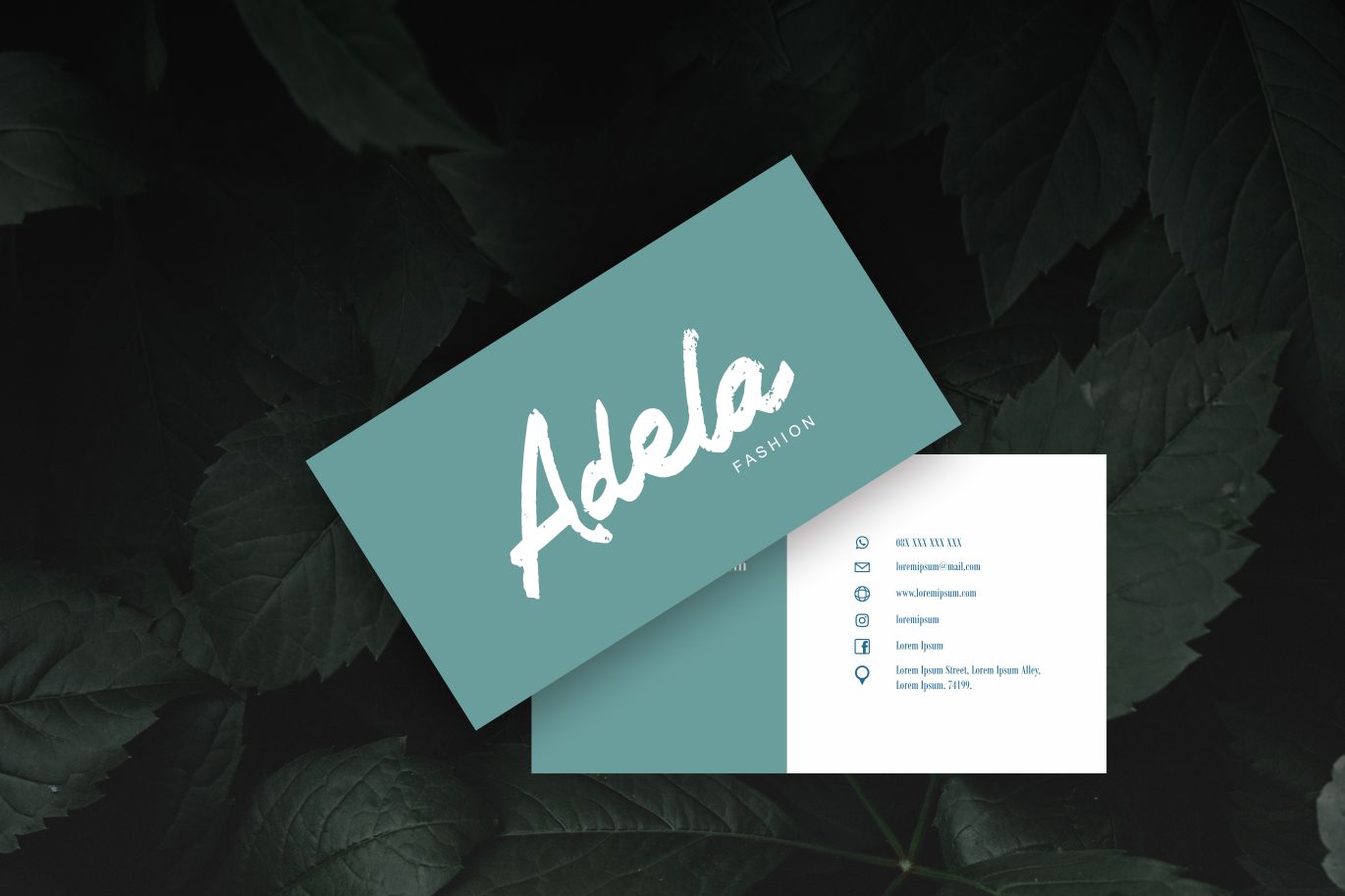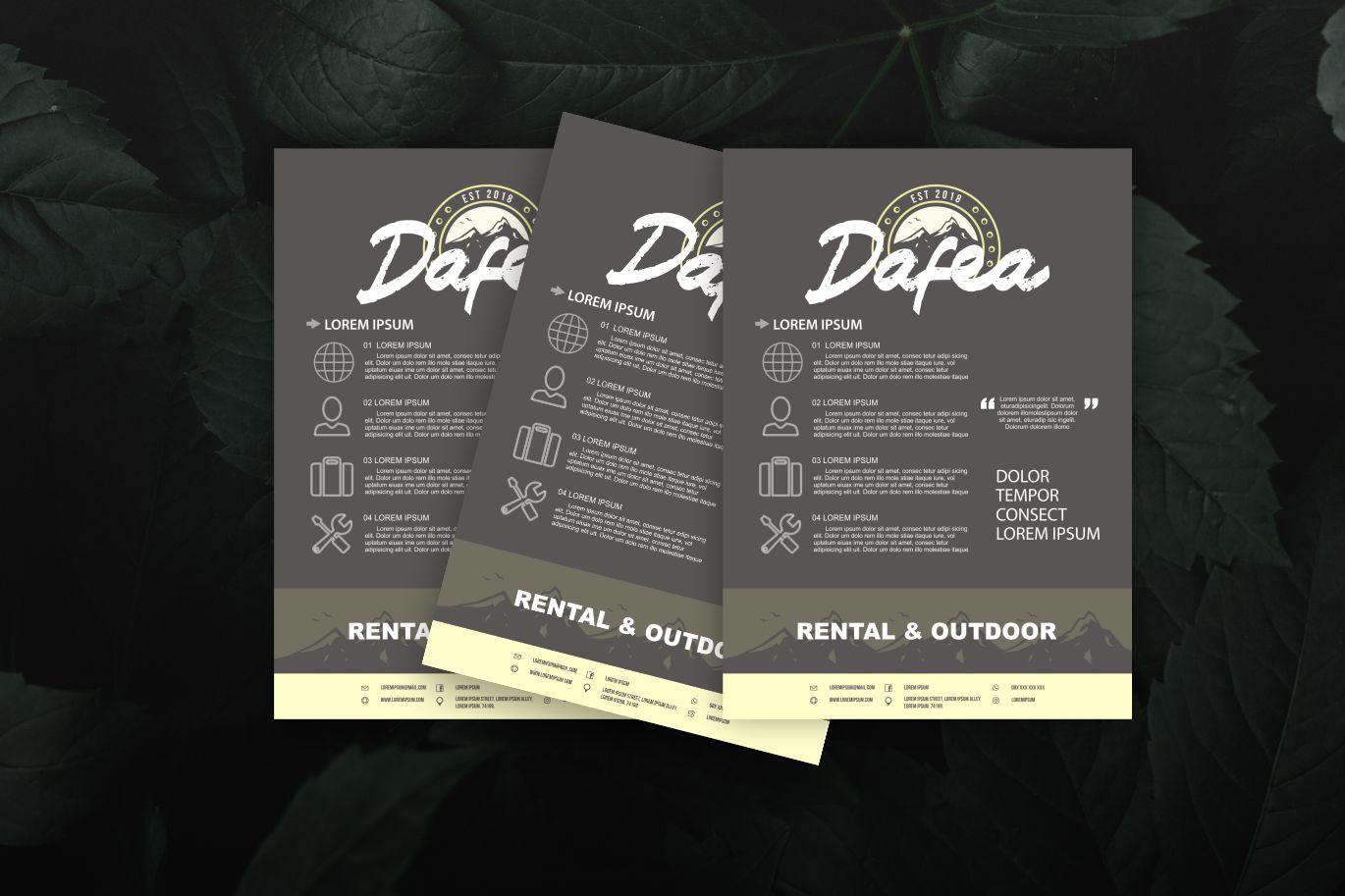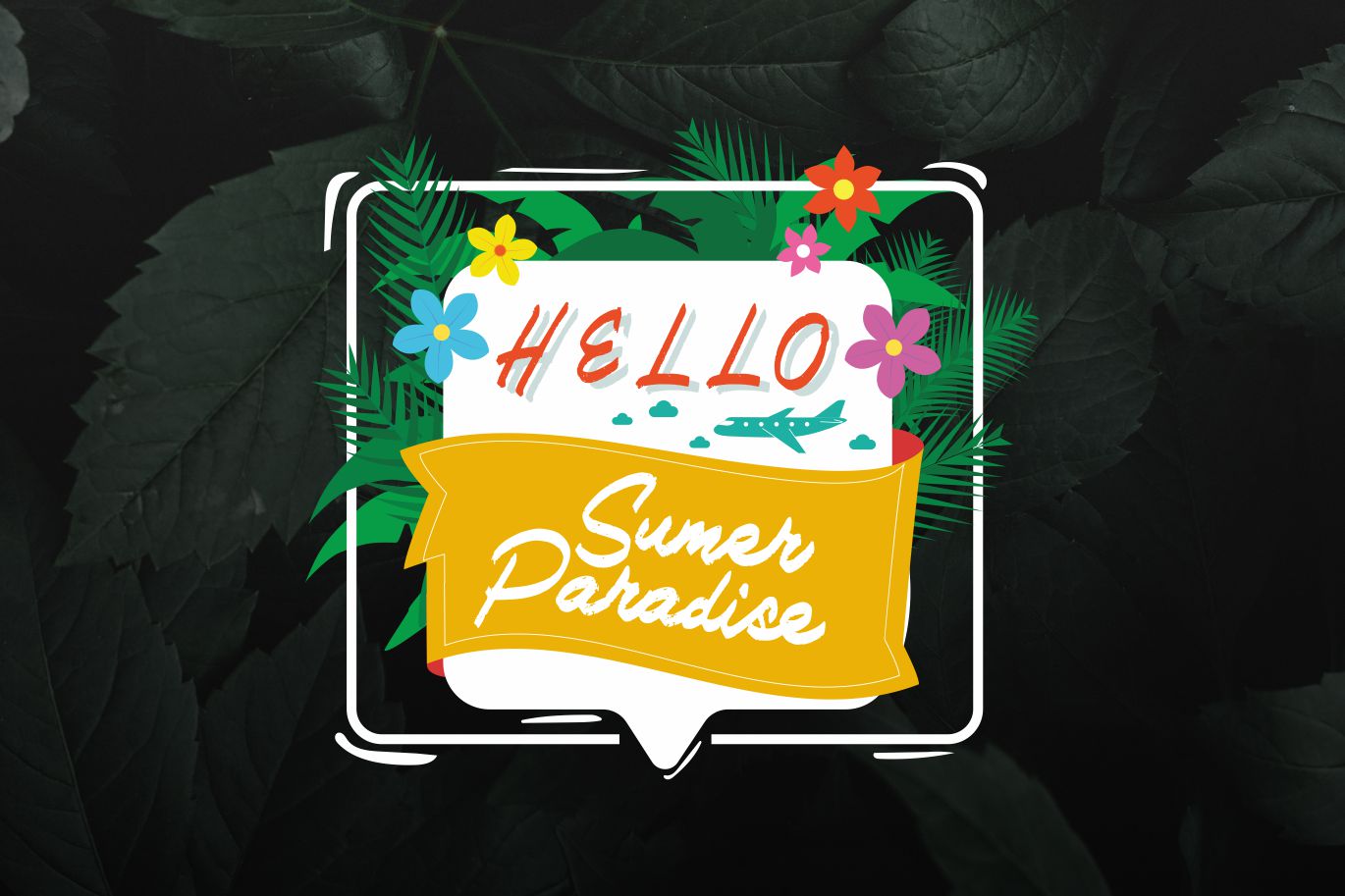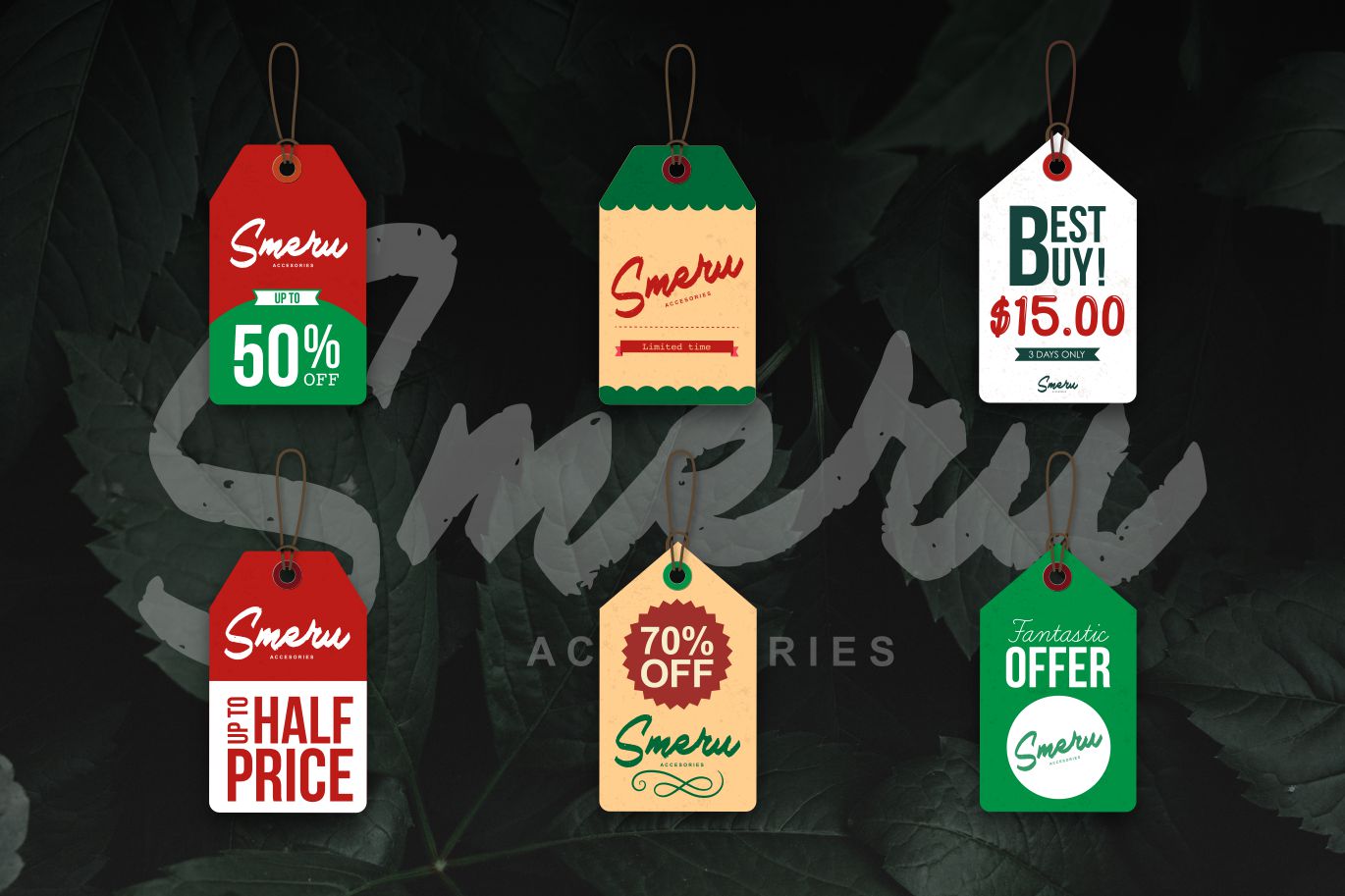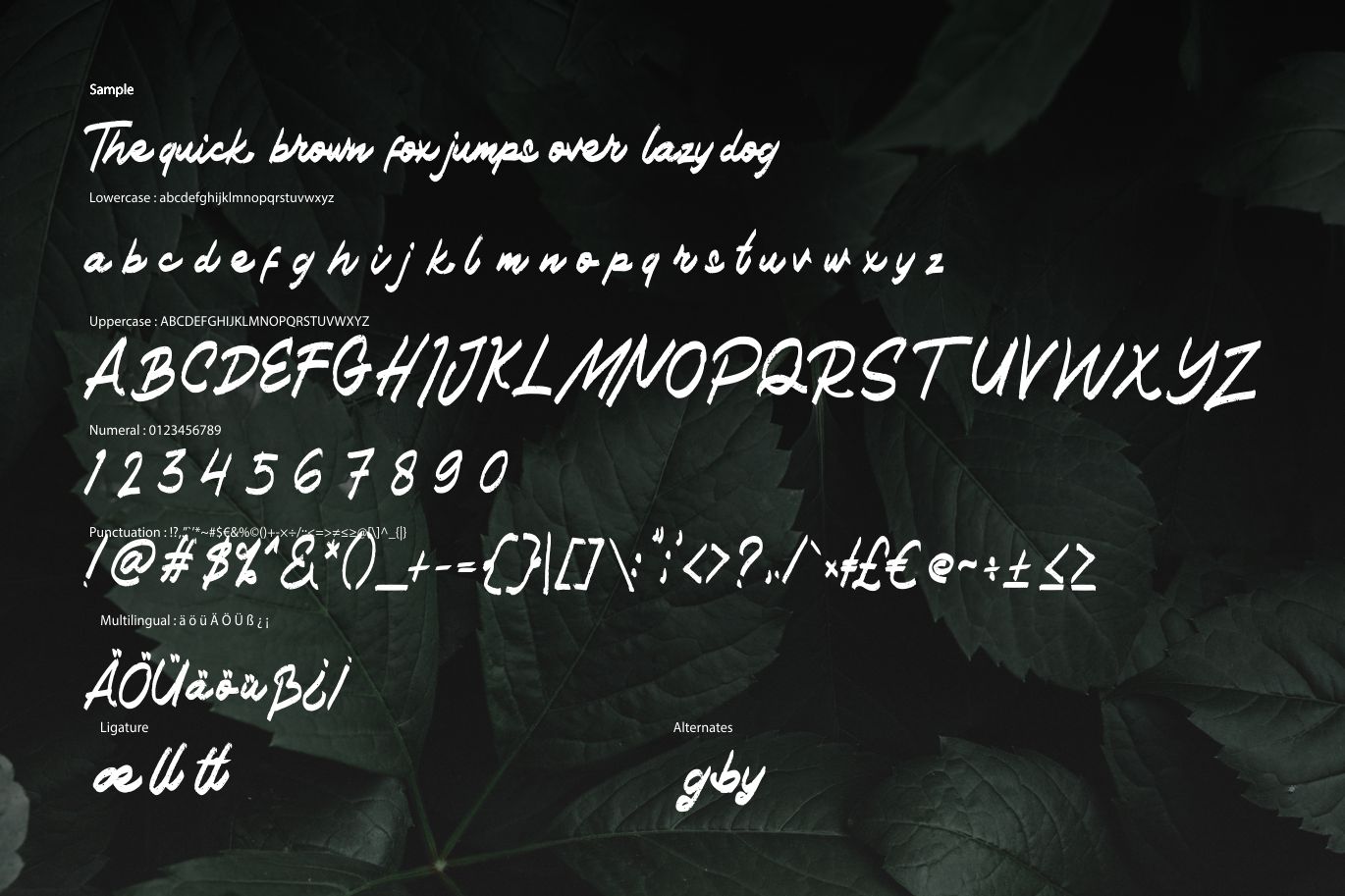
Haned | Masculine Typeface Font
**Haned | Masculine Typeface Font** with a calligraphy style, So beautiful on invitation like greeting cards, branding materials, business cards, quotes, posters, and more!
* Tons of glyphs
* Alternates and Ligatures
* Punctional
* Fonts include **Multilingual Support**